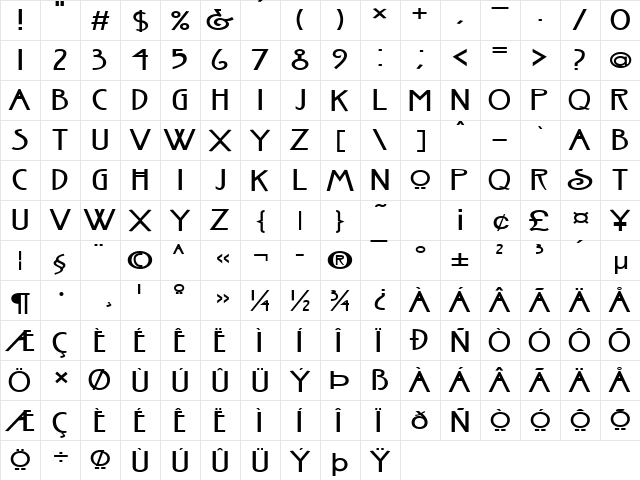
Fanzee-Extended Normal
Design Context for Fanzee-Extended Typeface
Fanzee-Extended is a composed and adaptable typeface that performs quietly and consistently across a wide range of design contexts.